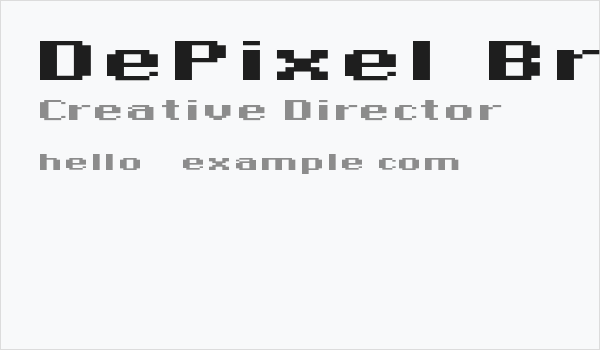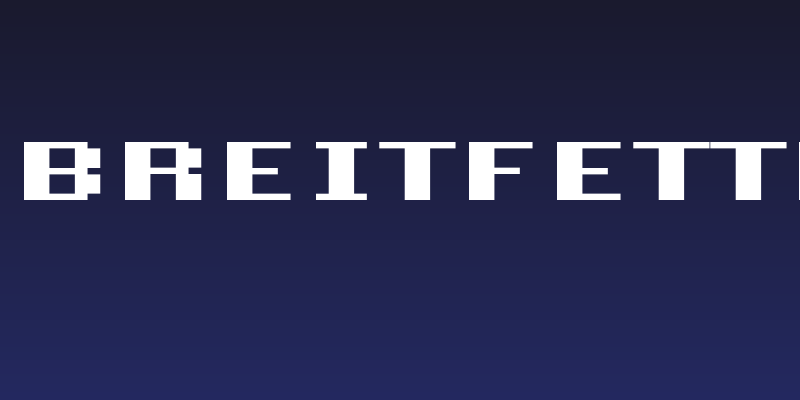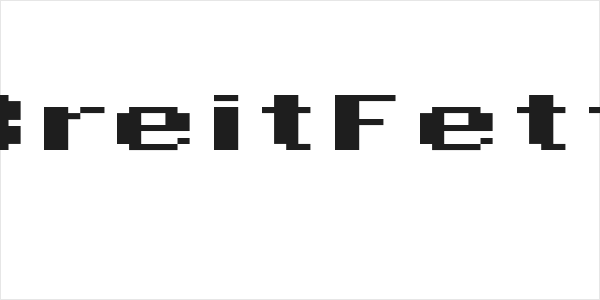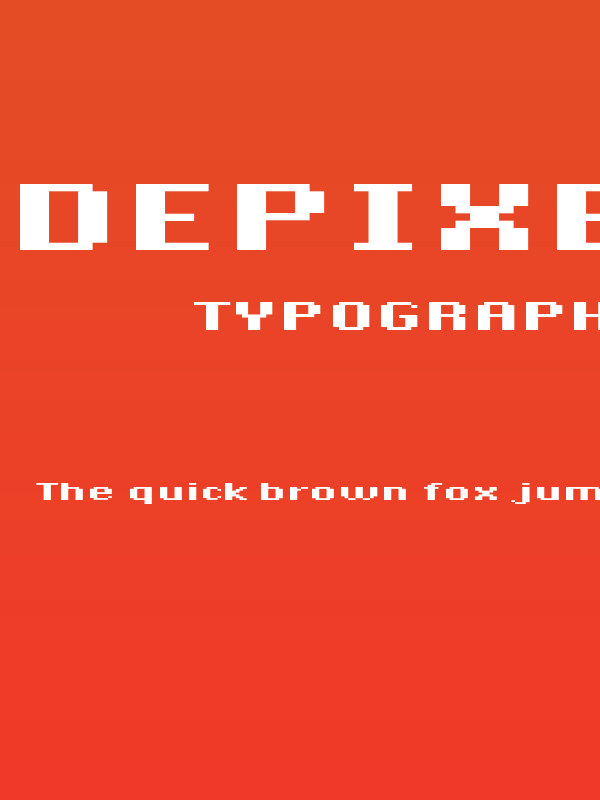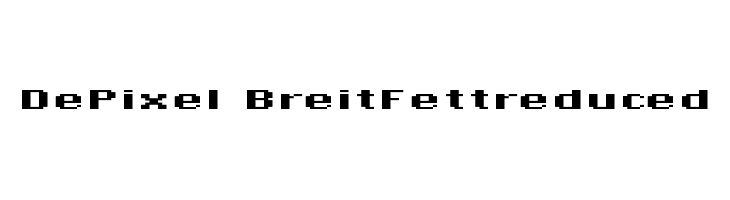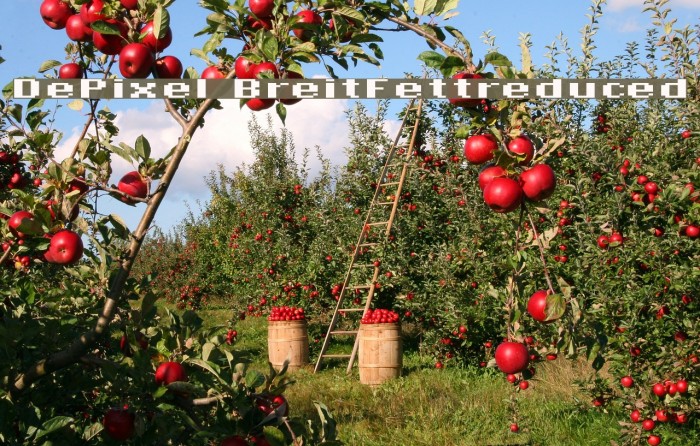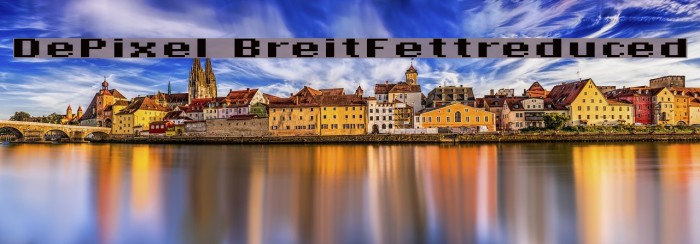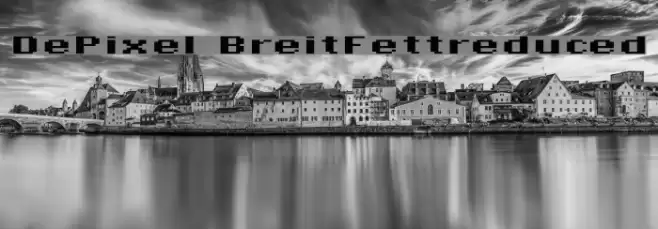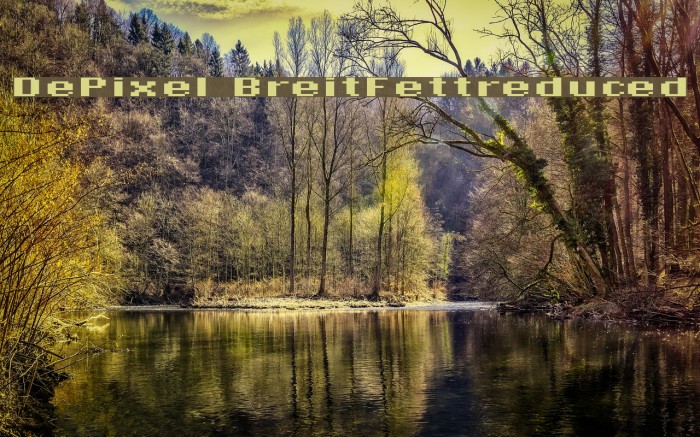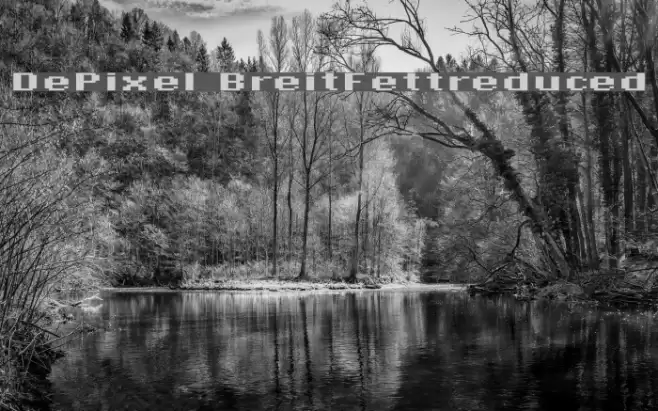
DePixel-BreitFettreduced Font
DePixel-BreitFettreduced Description
This font features a bold, pixelated style reminiscent of early digital typography. Each character is constructed with a blocky, grid-like appearance, giving it a distinctly retro and digital aesthetic. The uppercase and lowercase letters maintain a consistent width, contributing to a uniform and structured look. The font's design is straightforward, with minimal curves and a focus on angular, geometric shapes. This makes it highly legible and ideal for digital displays or projects that aim to evoke a sense of nostalgia for early computing or video games. The characters are evenly spaced, ensuring clarity and readability even at smaller sizes.
| Overall Style | Retro, Digital |
| Use Case | Headlines, Logos, Digital displays |
| Proposed Projects | Ideal for video game design, digital art projects, retro-themed posters, and any creative work that seeks to capture the essence of early digital typography. |